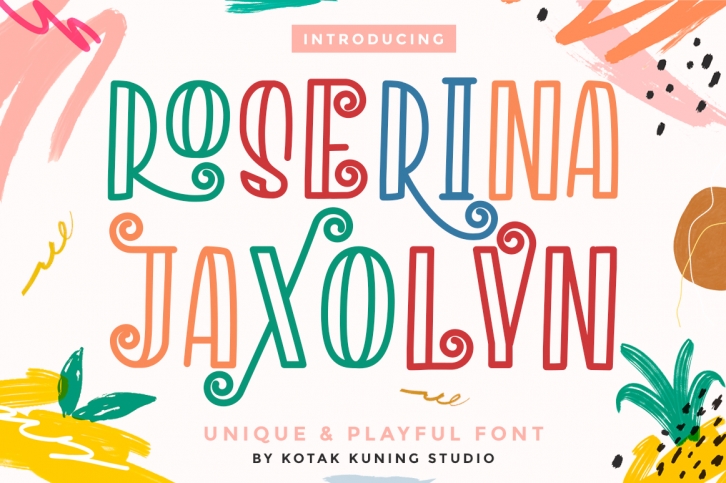
Roserina Jaxolyn is a trendy and unique font with an authentic style. It was designed by Kotak Kuning Studio and it's a great choice for creative people who need such a font. It was released on July 8, 2019 and the file size is 20.83 MB. Roserina Jaxolyn will add an organic vibe to any design idea!